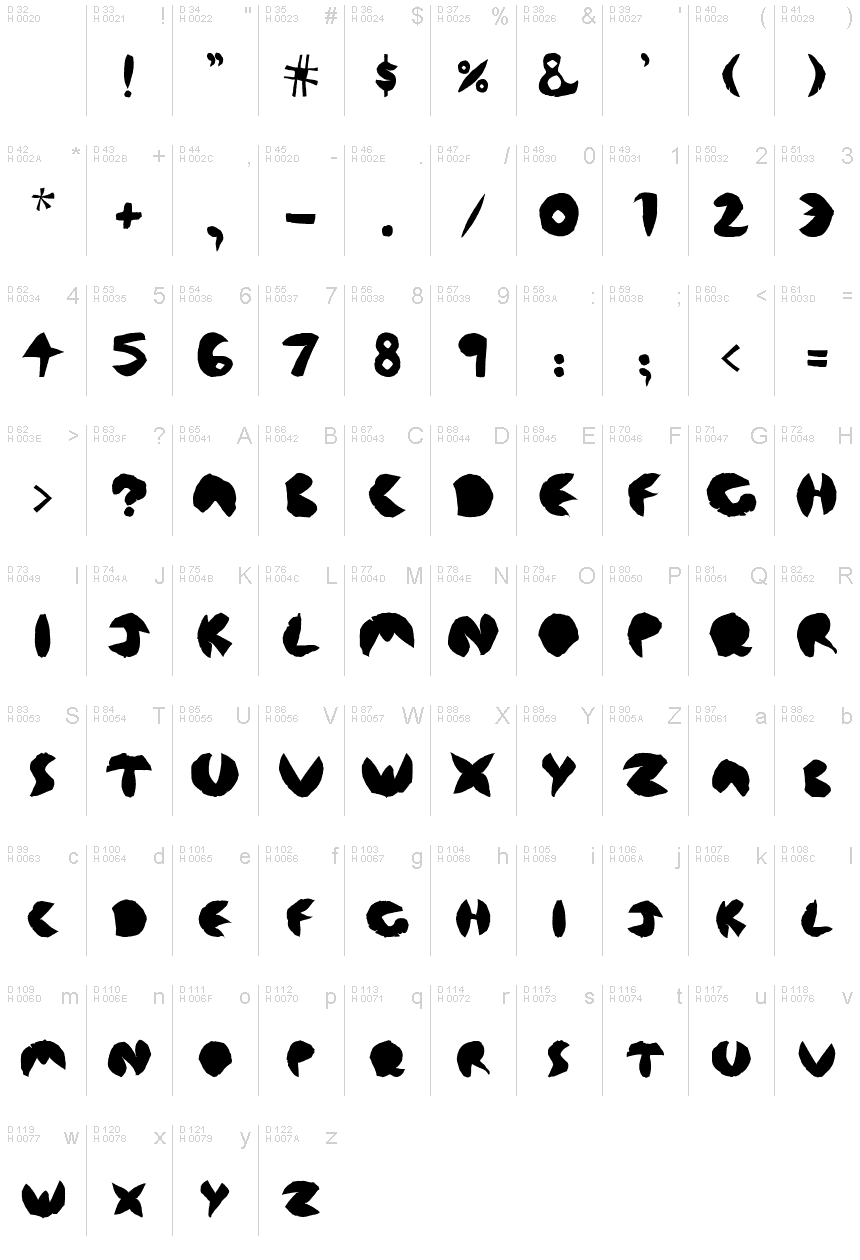
floresrosx
This is a font handmade with rose petals. Made with lots and lots of queer love. Hope you enjoy it!
una tipografia hecha a base de los tiernos petalos de una rosa roja************************